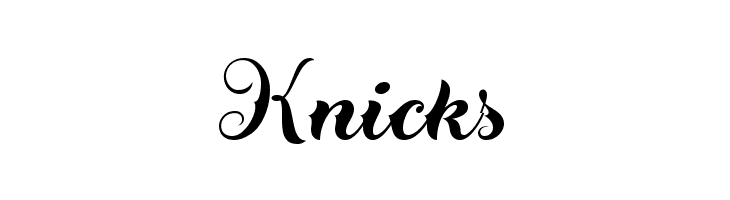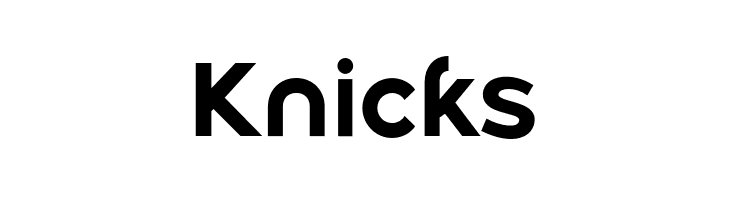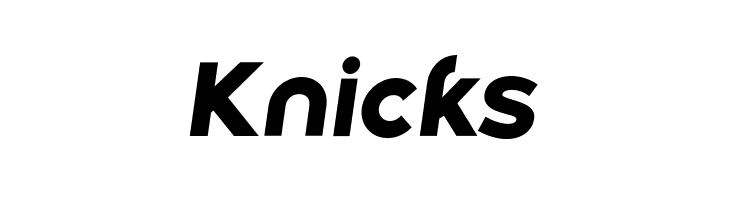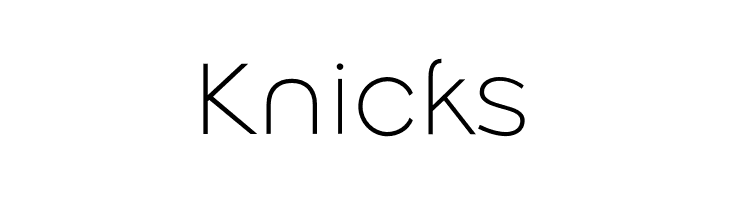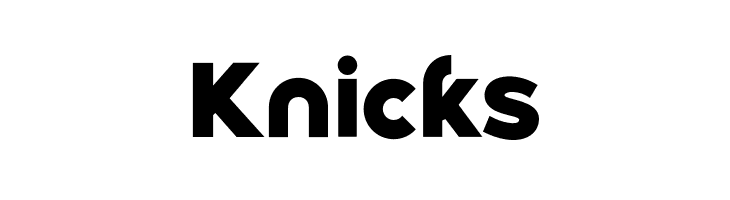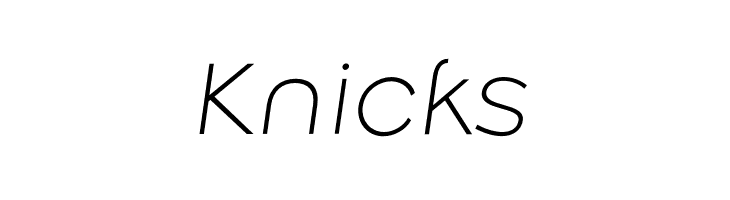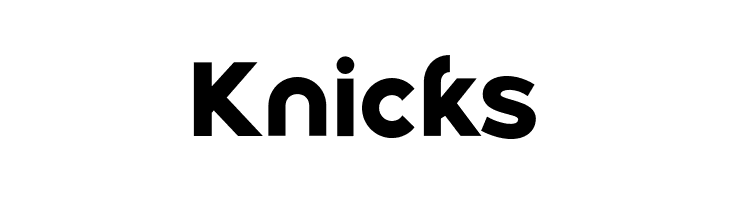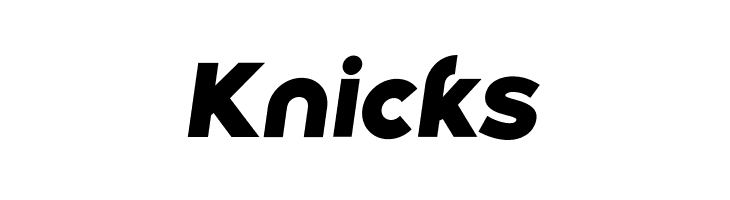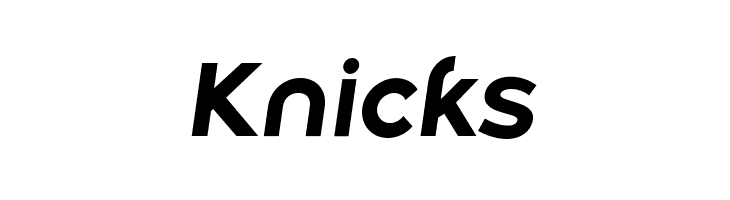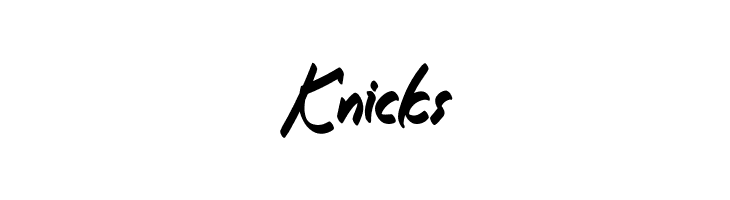
An elegant script font with flowing, ornate letters and decorative flourishes.
A dynamic, expressive handwritten font with fluid strokes and a lively style.
A bold, modern sans-serif font with geometric influences.
A bold, modern sans-serif font with clean lines and geometric structure.
A bold, geometric sans-serif typeface with a modern and assertive style.
A bold, italicized sans-serif font with a modern geometric style.
A modern, geometric sans-serif font with an extra light weight.
A modern, extra light italic sans-serif font with clean lines and a refined aesthetic.